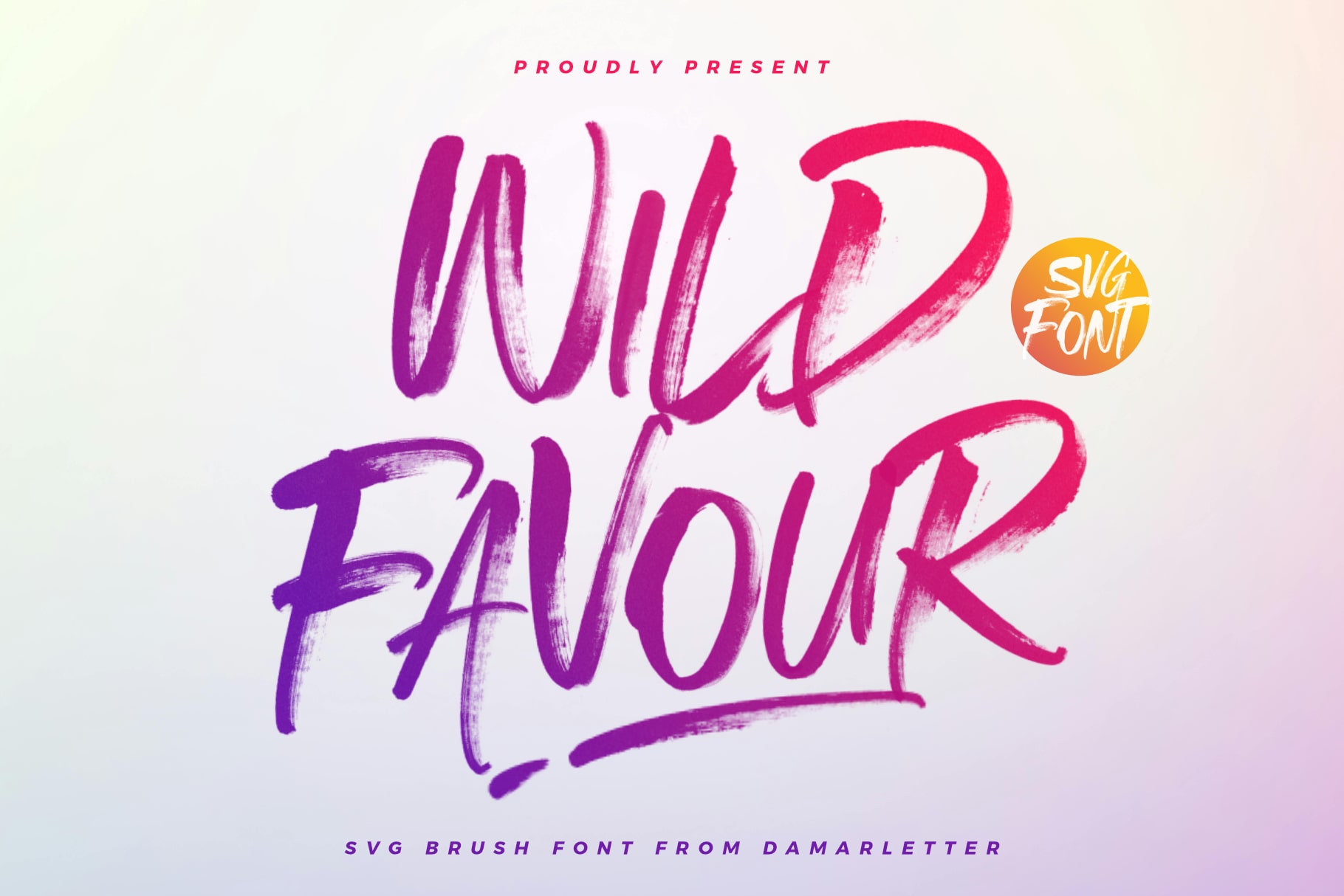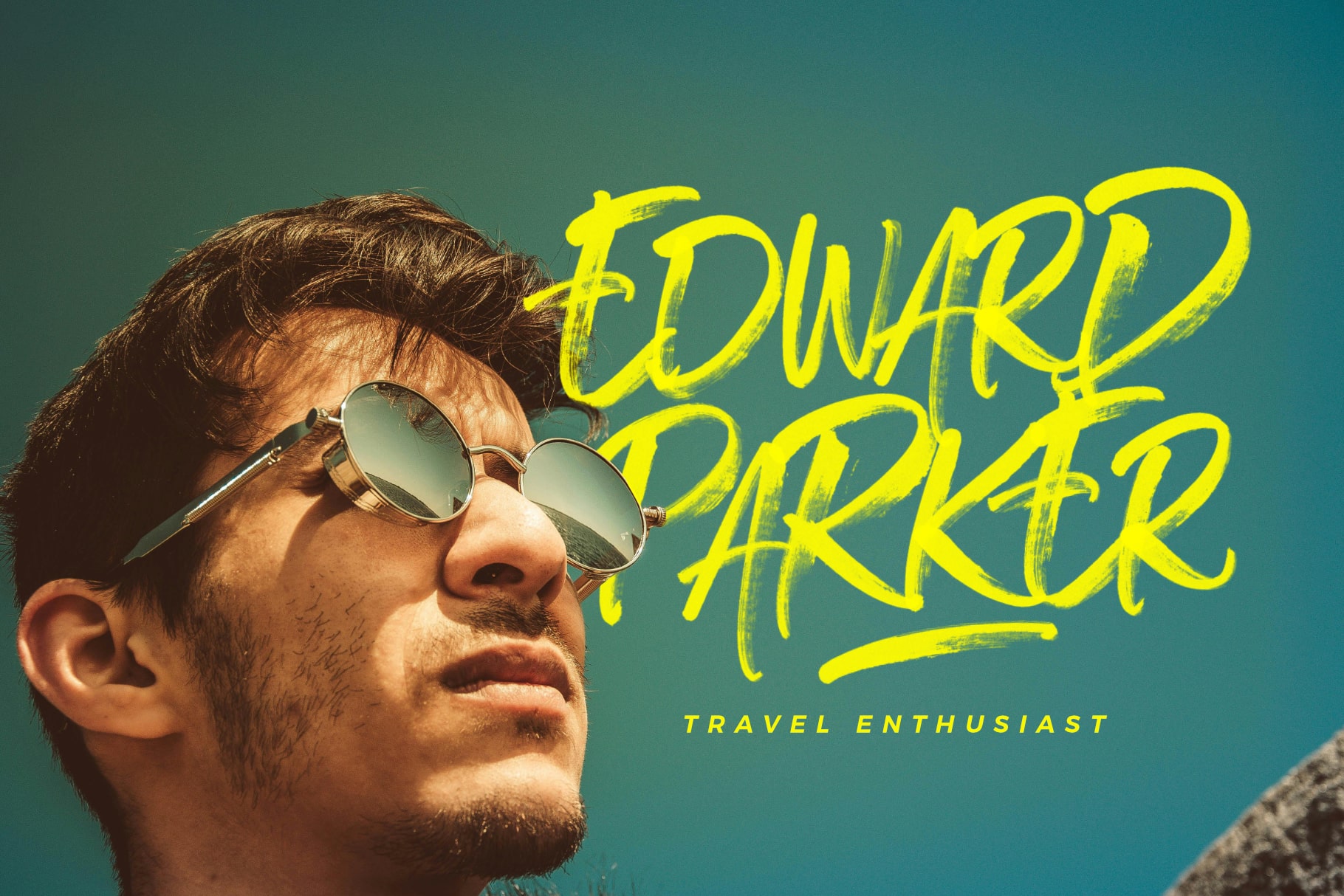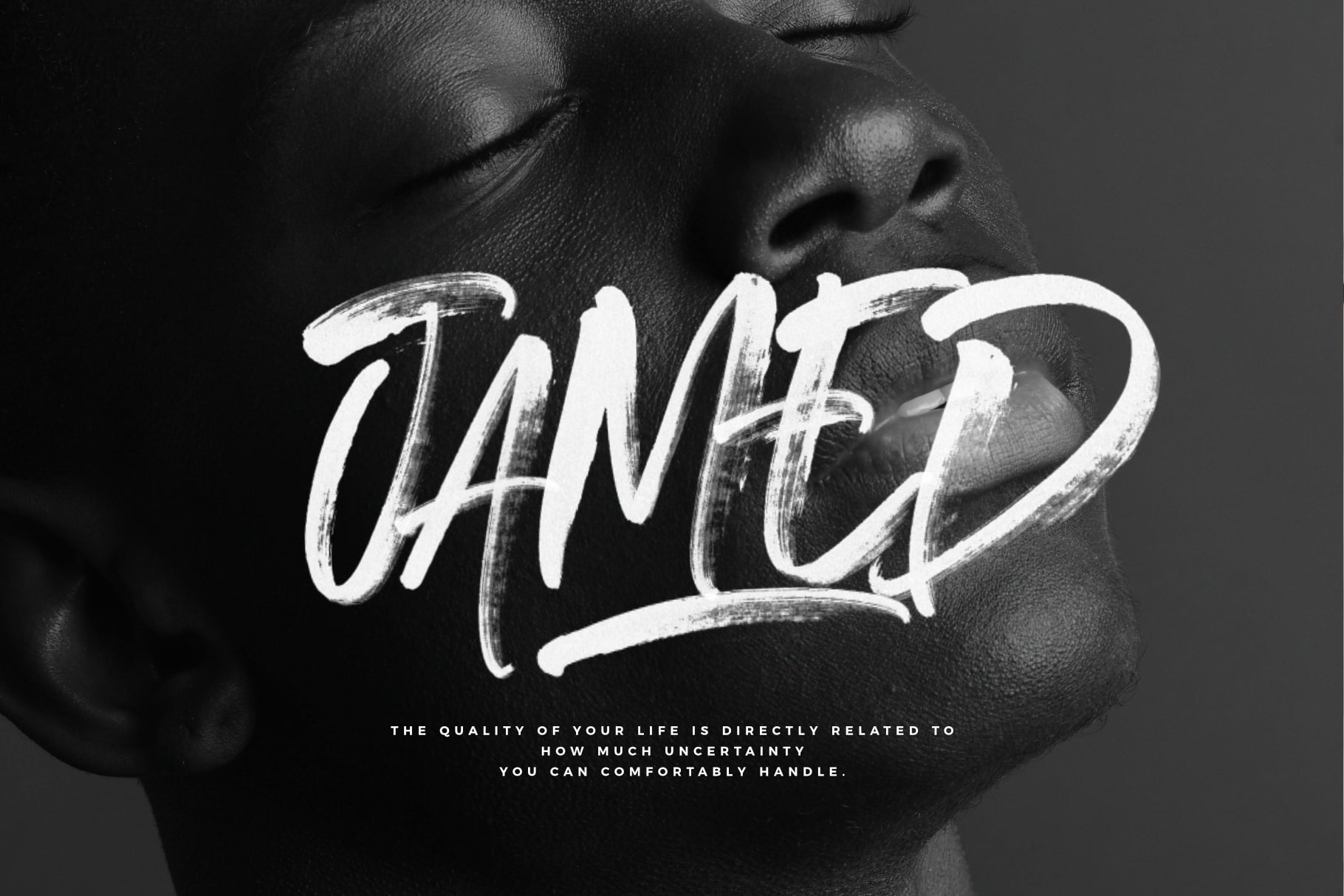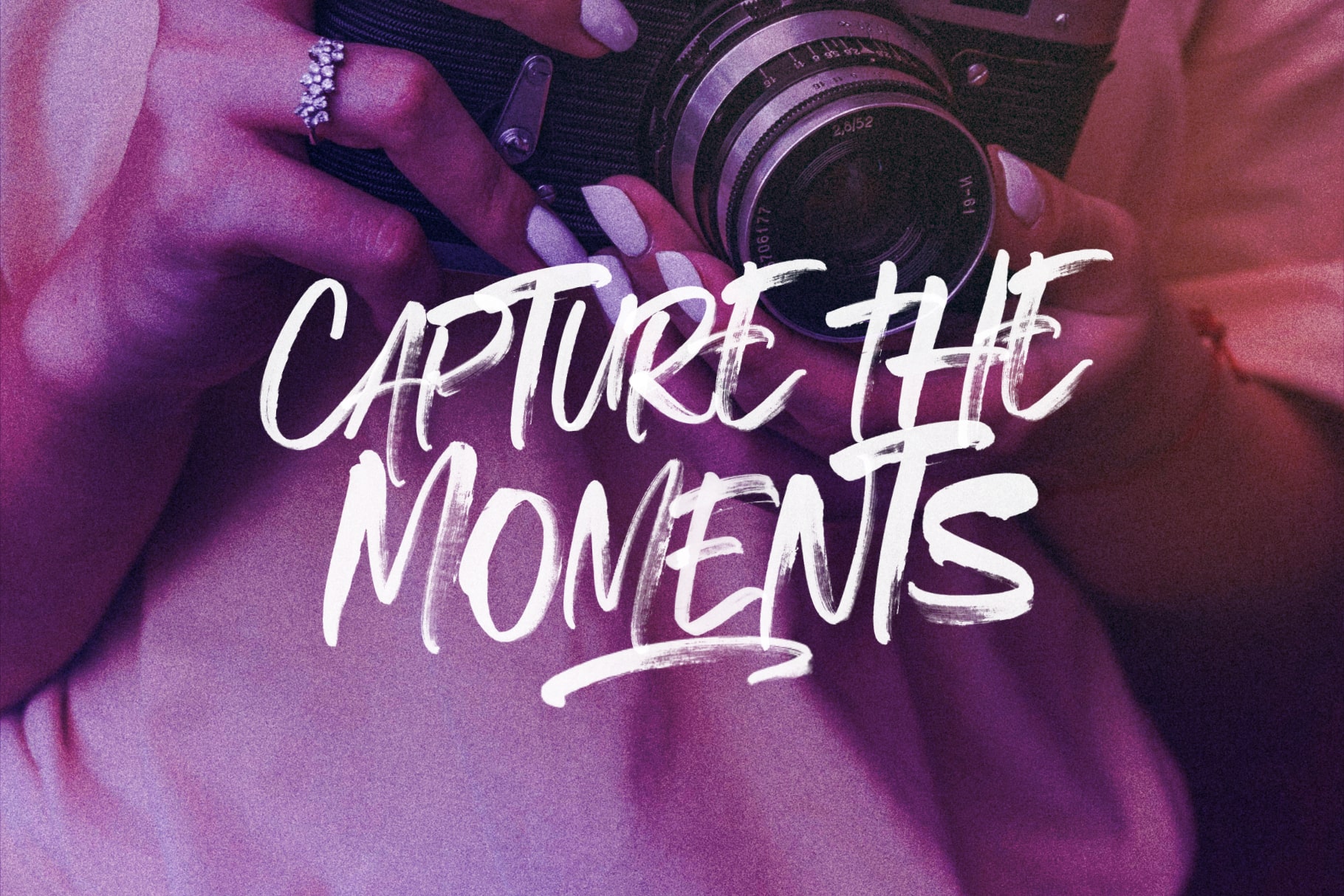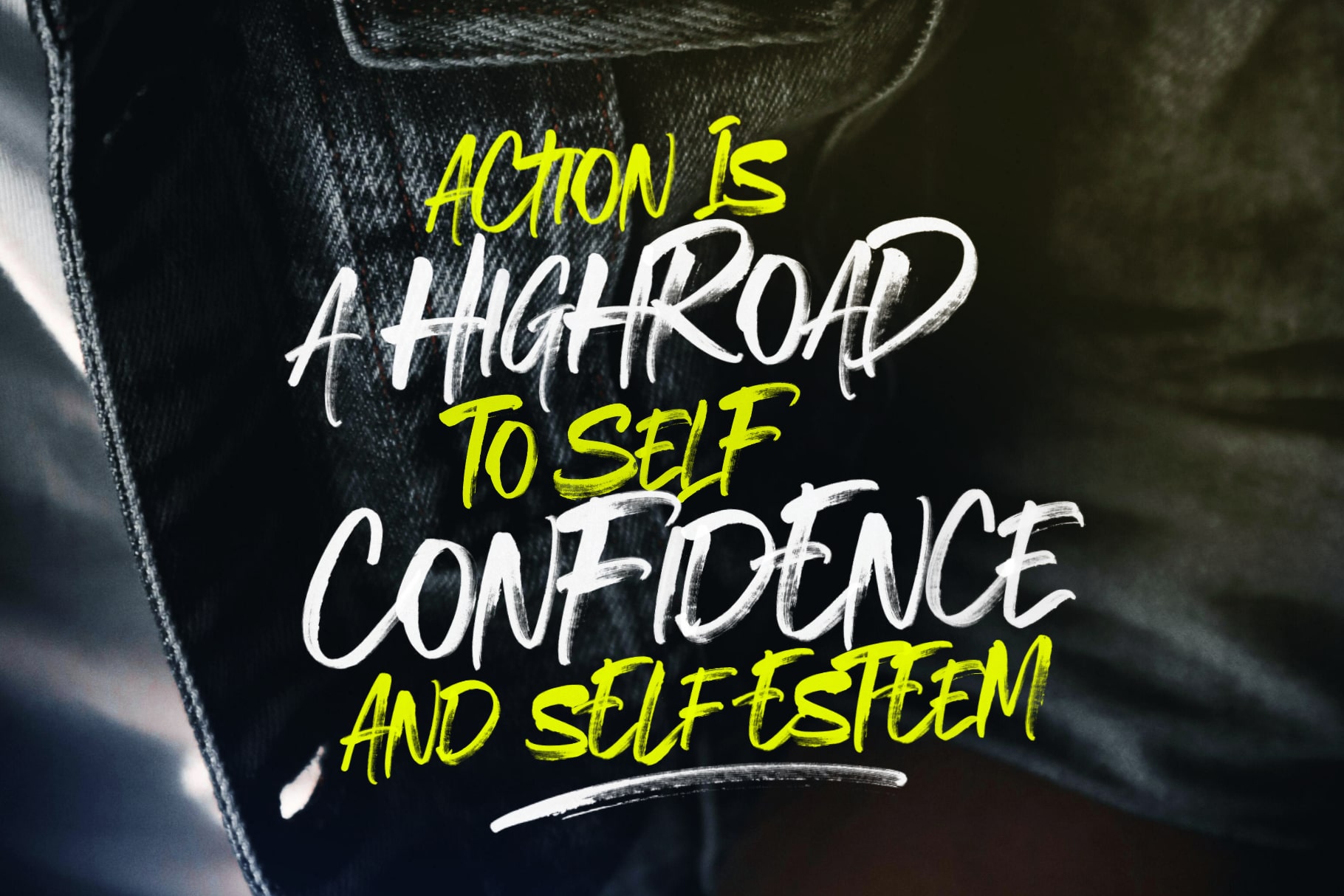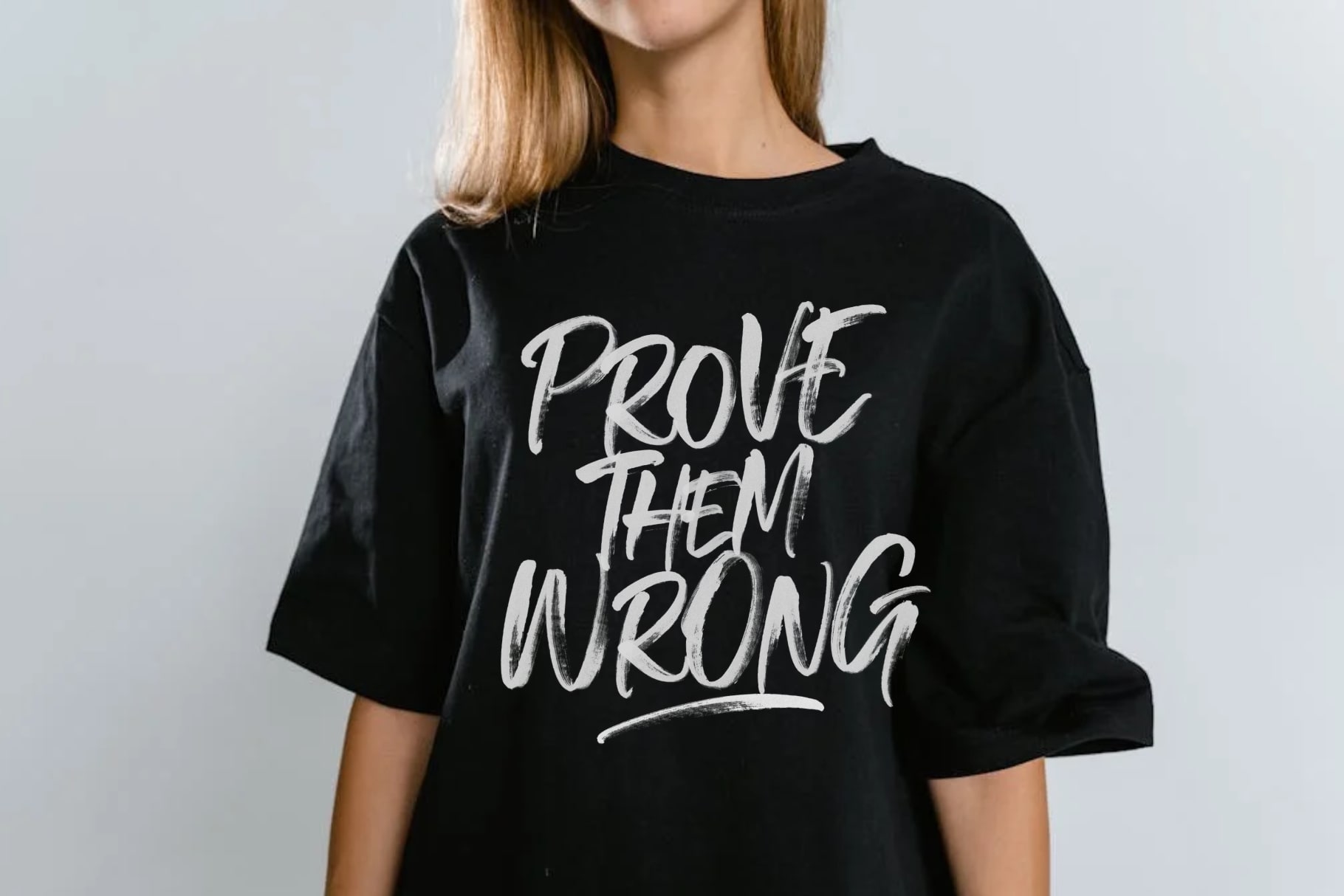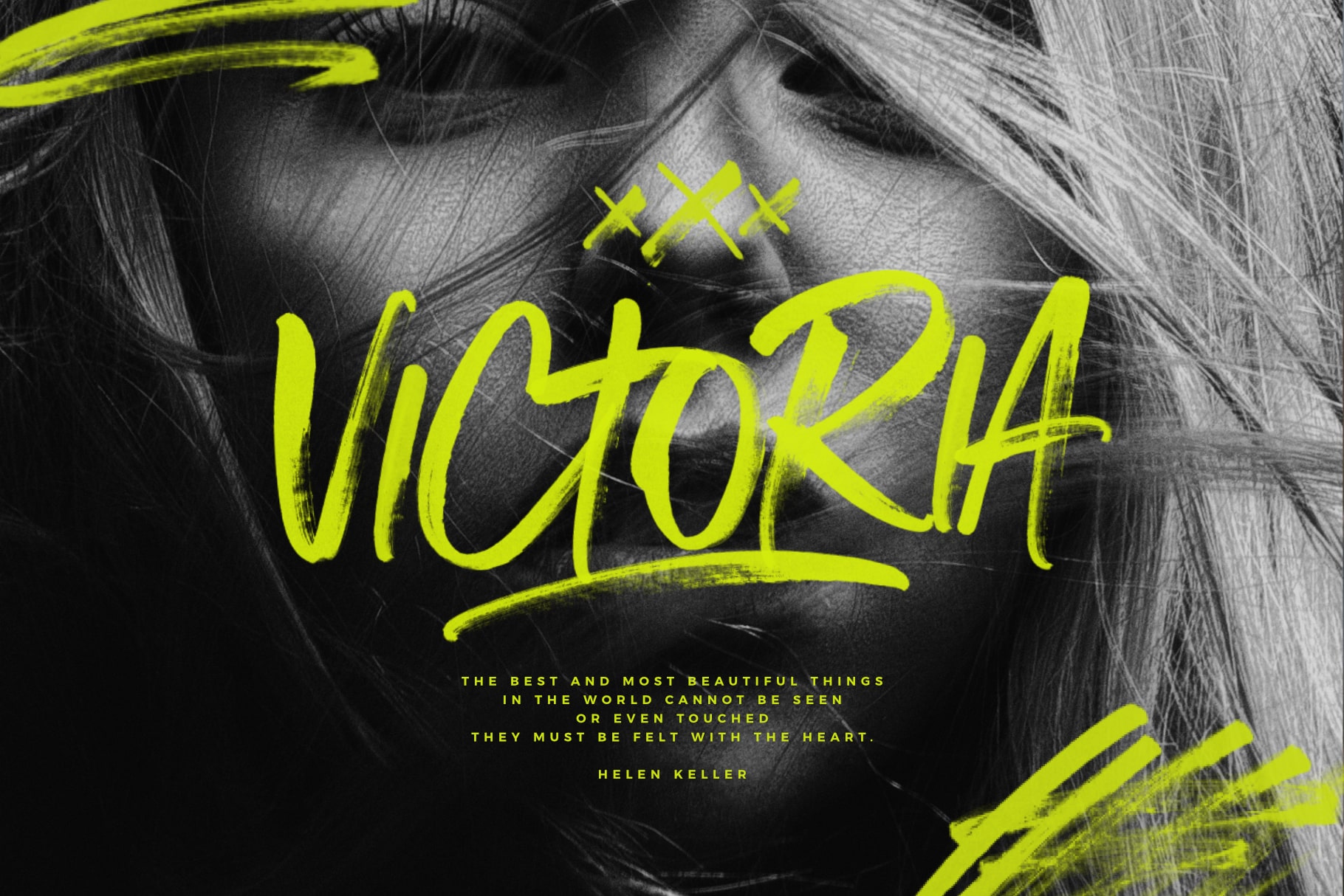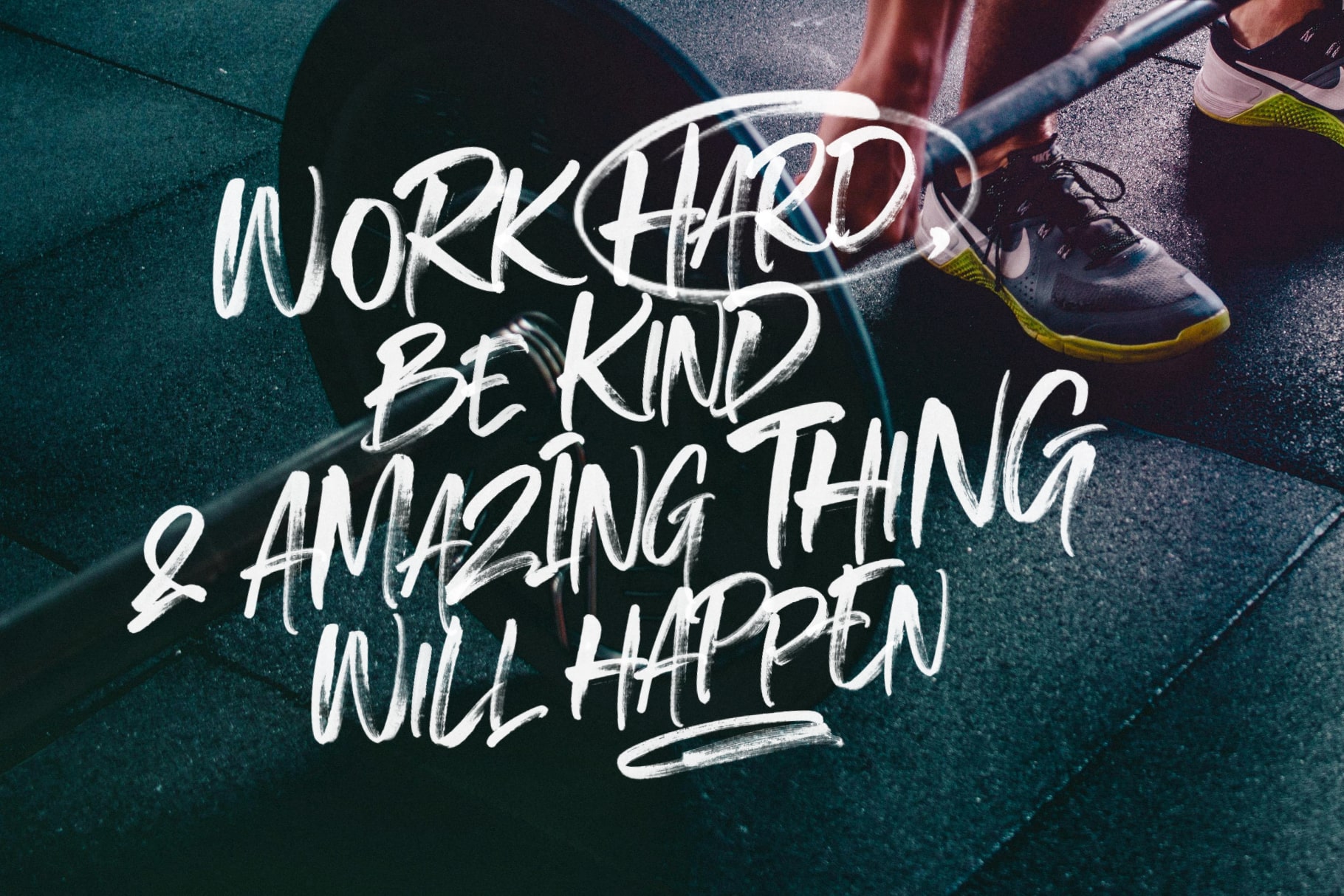
- Wild Favour SVG font
Wild Favour is a dynamic and expressive SVG Brush font that captures the raw energy and texture of real brushstrokes. With its bold and organic letterforms, this font brings an authentic and artistic feel to your designs. The high-resolution details of Wild Favour make each character appear as though it was painted by hand, adding a unique and tactile quality to your work.
This font is perfect for projects that seek to make a statement with a touch of rugged sophistication. Whether you’re designing striking posters, edgy apparel, eye-catching logos, or impactful social media graphics, Wild Favour adds a sense of movement and intensity to your creations.
Wild Favour’s SVG format ensures that every brushstroke is rendered with incredible detail, capturing the nuances of pressure and texture. This makes the font ideal for high-resolution designs where the quality of the brush detail can truly shine. Embrace the bold and unrefined spirit of Wild Favour SVG Brush font, and let your designs stand out with its vivid and expressive style.